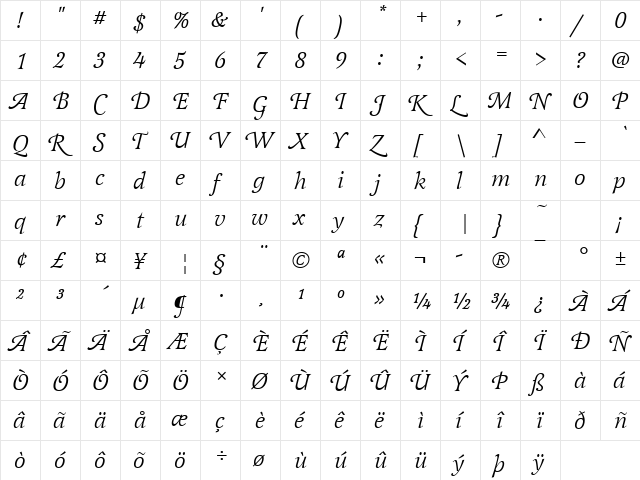
Latienne Becker Swash Alt Italic
Design Context for Latienne Becker Swash Alt Typeface
Latienne Becker Swash Alt flows with the natural rhythm of handwritten lettering, making it ideal for designs that call for warmth and personal expression.
Font Pairing: Combine Latienne Becker Swash Alt with a simple geometric sans for maximum contrast — the tension between flowing curves and clean structure is a classic typographic pairing.
Pro Tip: Use Latienne Becker Swash Alt for short runs of text — names, titles, or taglines. Extended body copy in script faces tires the eye quickly.